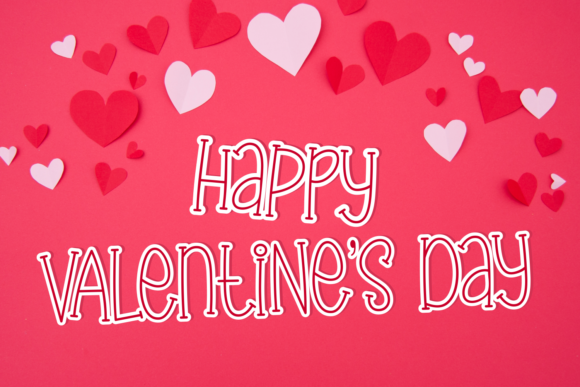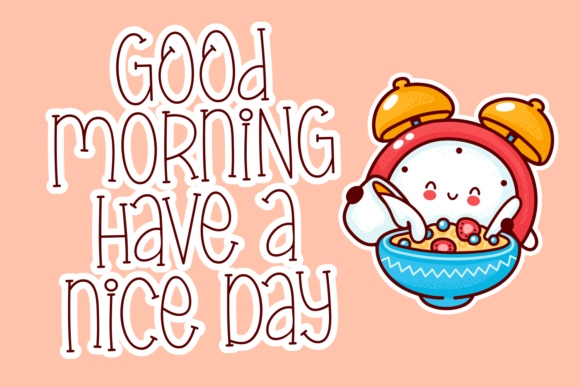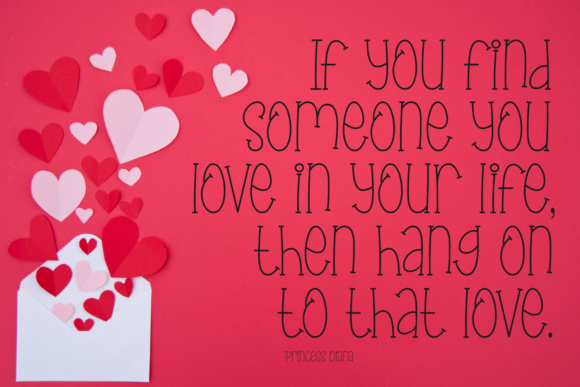
Introducing Happy Diary: The Cute and Romantic Serif Font for Friendly Designs
Are you a designer or crafter looking for a font that can add a touch of warmth and personality to your designs? Look no further than Happy Diary, a charming serif font that’s perfect for friendly and informal designs. In this article, we’ll explore the features and uses of Happy Diary, and show you how it can elevate your designs to the next level.
What is Happy Diary?
Happy Diary is a cute and romantic serif font that’s designed to bring a smile to your face. Its playful and whimsical style makes it perfect for designs that require a friendly and approachable tone. The font features classic serif elements, but with a modern twist that gives it a fresh and youthful feel.
Features of Happy Diary
So, what makes Happy Diary so special? Here are just a few of its key features:
- Cute and romantic style: Happy Diary has a charming and affectionate feel that’s perfect for designs that require a personal touch.
- Serif font: The font features classic serif elements that give it a sophisticated and elegant feel.
- Playful and whimsical: Happy Diary has a playful and carefree style that’s perfect for friendly and informal designs.
- Modern twist: The font has a fresh and youthful feel that makes it perfect for modern designs.
Uses of Happy Diary
So, what can you use Happy Diary for? The possibilities are endless! Here are just a few ideas to get you started:
- Stationery packaging: Add a personal touch to your stationery packaging with Happy Diary’s charming and romantic style.
- Product tags: Use Happy Diary to create eye-catching product tags that will make your products stand out.
- Name tags: Create personalized name tags with Happy Diary’s playful and whimsical style.
- Invitations: Use Happy Diary to create beautiful and elegant invitations for weddings, parties, and other special events.
- Event posters: Create eye-catching event posters with Happy Diary’s modern and youthful feel.
Why Choose Happy Diary?
So, why should you choose Happy Diary for your designs? Here are just a few reasons:
- Unique style: Happy Diary has a unique and distinctive style that will set your designs apart from the crowd.
- Easy to read: The font is easy to read, even at small sizes, making it perfect for designs that require a lot of text.
- Versatile: Happy Diary is a versatile font that can be used for a wide range of designs, from formal to informal.
- Fun and playful: The font has a fun and playful style that’s perfect for designs that require a lighthearted touch.
In conclusion, Happy Diary is a charming and romantic serif font that’s perfect for friendly and informal designs. Its unique style, ease of use, and versatility make it a great choice for designers and crafters looking to add a personal touch to their designs. Whether you’re creating stationery packaging, product tags, or event posters, Happy Diary is the perfect font for you.